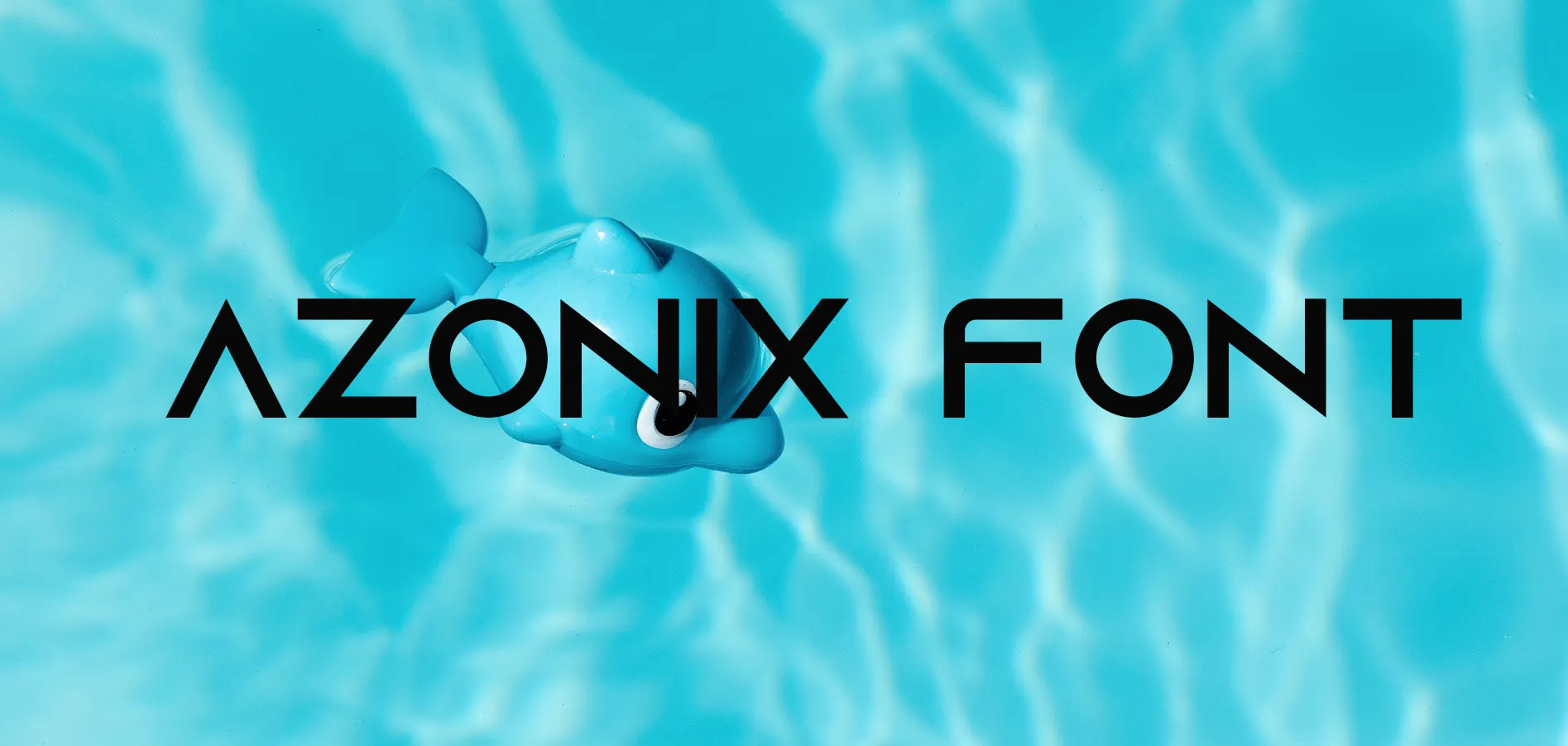
Azonix Font Family is an ultra-modern sans-serif in the font market that is having geometric letterings including uppercase, numerals, basic punctuations, symbols, and special characters too, perfect for brands. It was designed and shared by MixoFx.
Gotham font and Connect Font are the most similar fonts on the web to this typeface. It can be also specified in the CSS family. It will be the best-paired font with other sans-serif typefaces like Univers Font.
Azonix Font Family